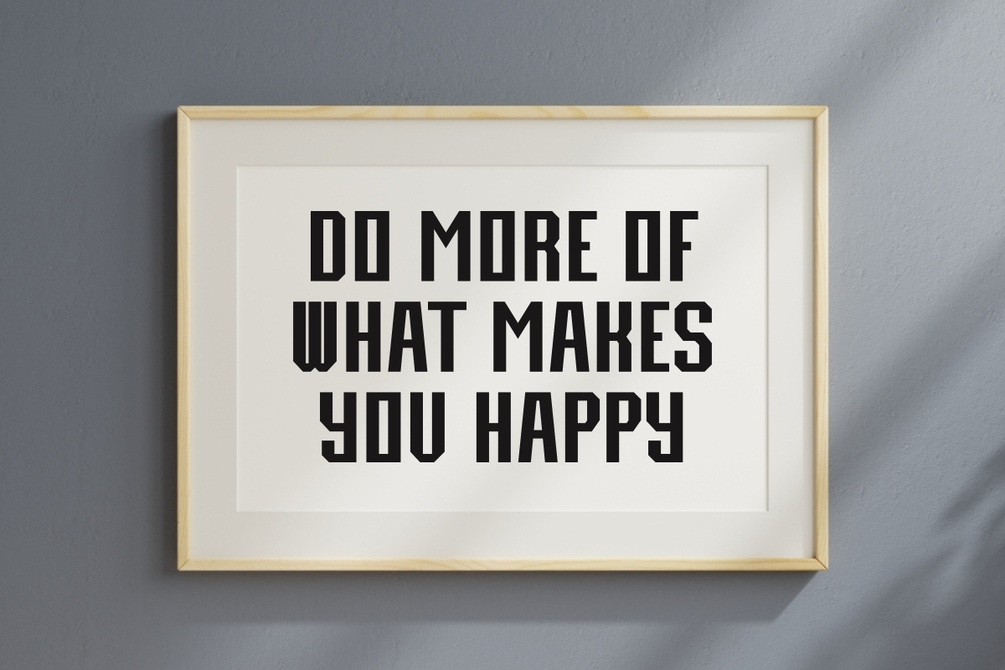
Great Trump - Classic Vintage Font
Great Trump is a bold rigid and classic vintage sans serif font inspired by modern trends and the iconic Trump style. This font ideal for quotes, posters, backgrounds, and headlines, perfect for apparel mockups like t-shirts tote bags, hoodie, mugs, pillows, tumblers, wall arts, labels, price tags, and other creative ideas including for modern social media designs, this font giving your content a strong and memorable visual identity.